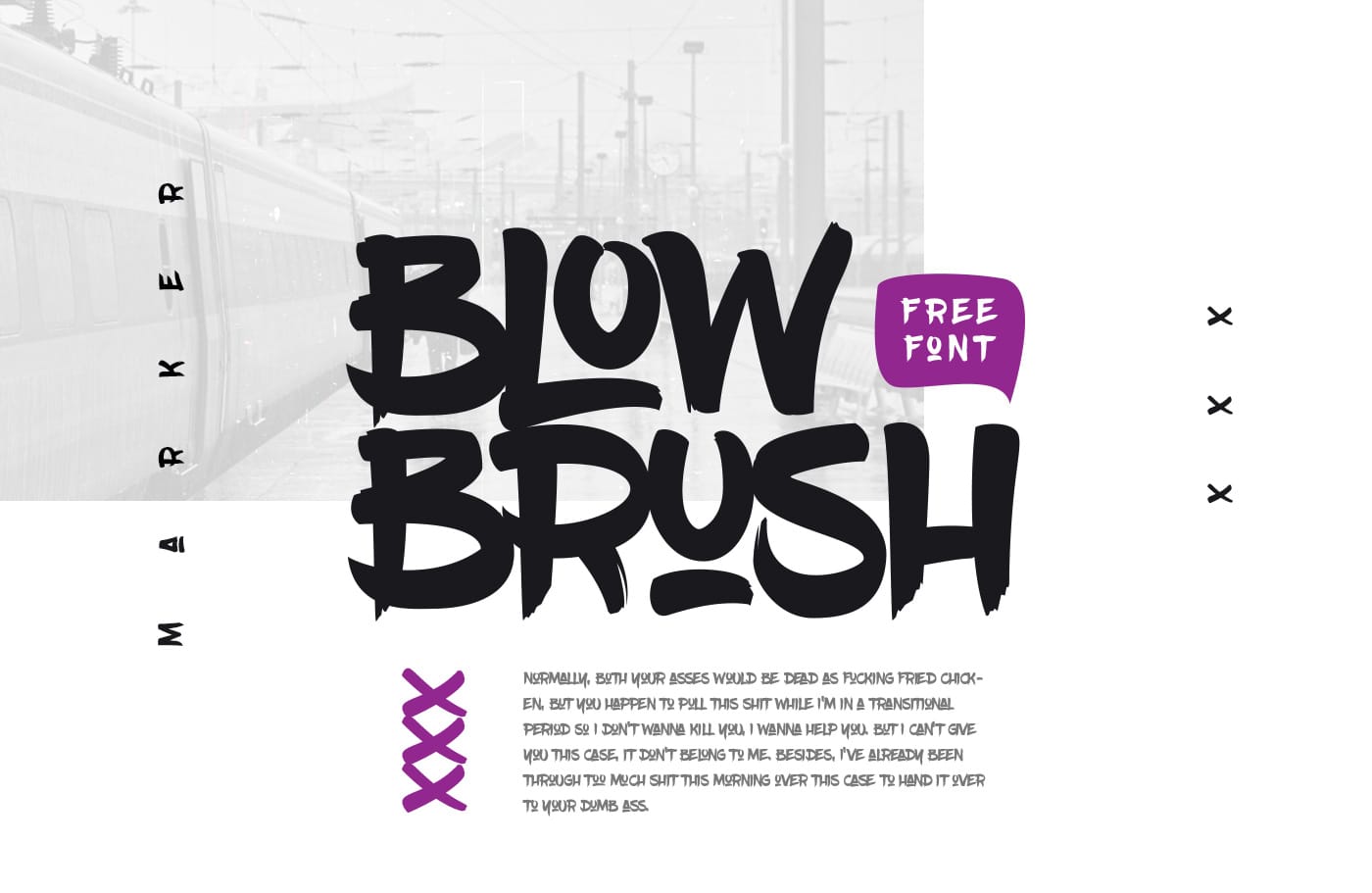
BlowBrush is a free font designed by Petar Acanski that captures the essence of hip hop culture and graffiti art. This bold and quirky typeface is ideal for anyone looking to add a touch of urban flair to their projects.
While the font prioritizes style, functionality has not been overlooked. Each letter is crafted for clarity, ensuring that your text remains readable and impactful. You can explore various variations, providing you with the flexibility to match BlowBrush with different themes and designs.
This font is perfect for design enthusiasts, marketers, or anyone wanting to make a statement. With BlowBrush, you get a unique combination of street style and practical usability, making it a valuable addition to your font collection. Download it now and start creating!